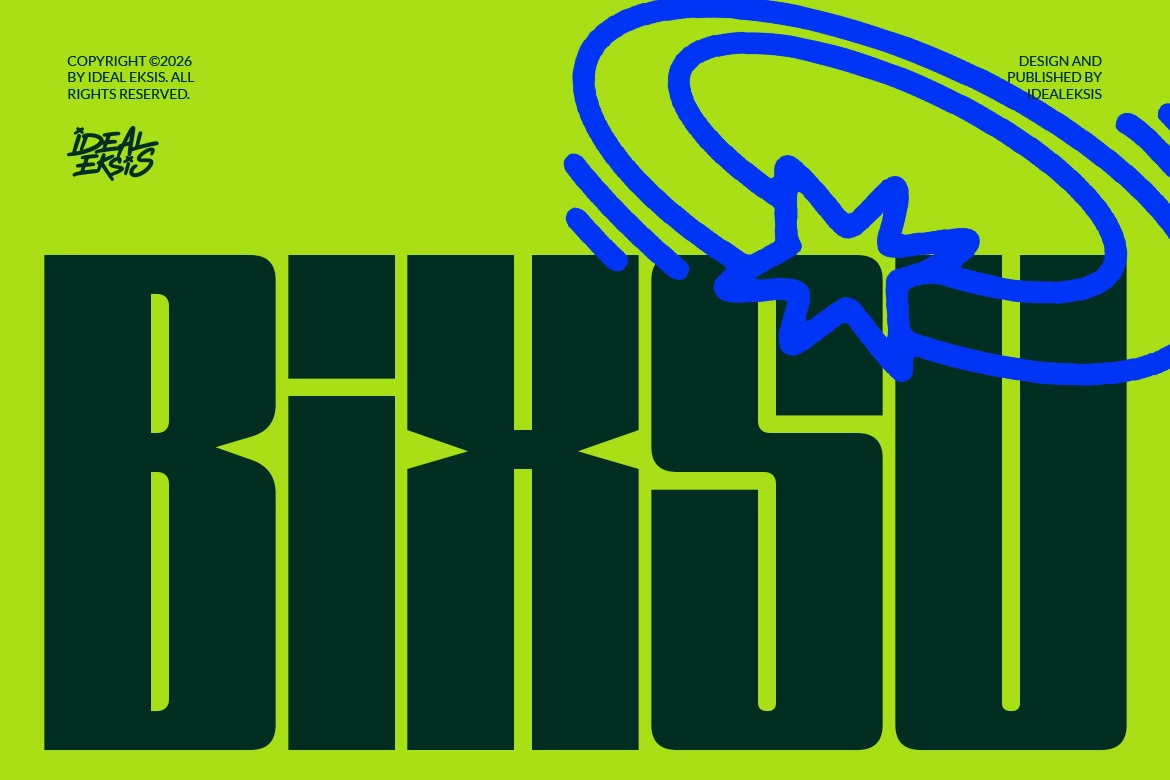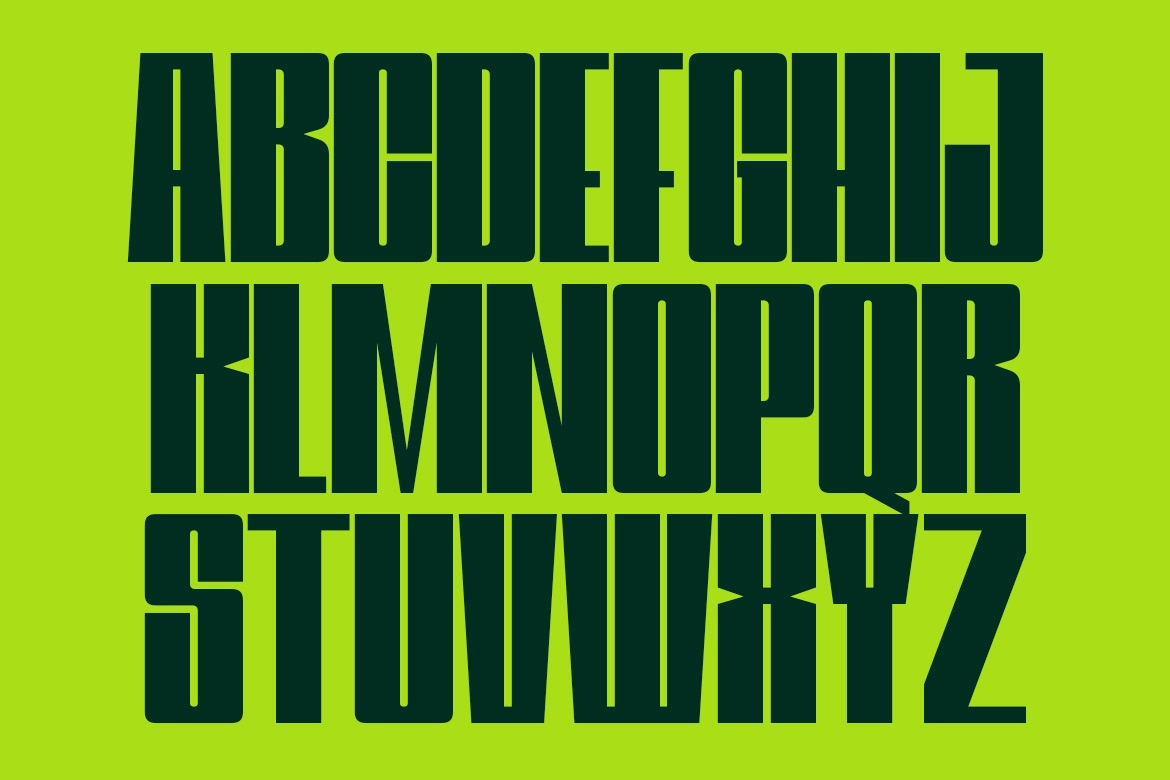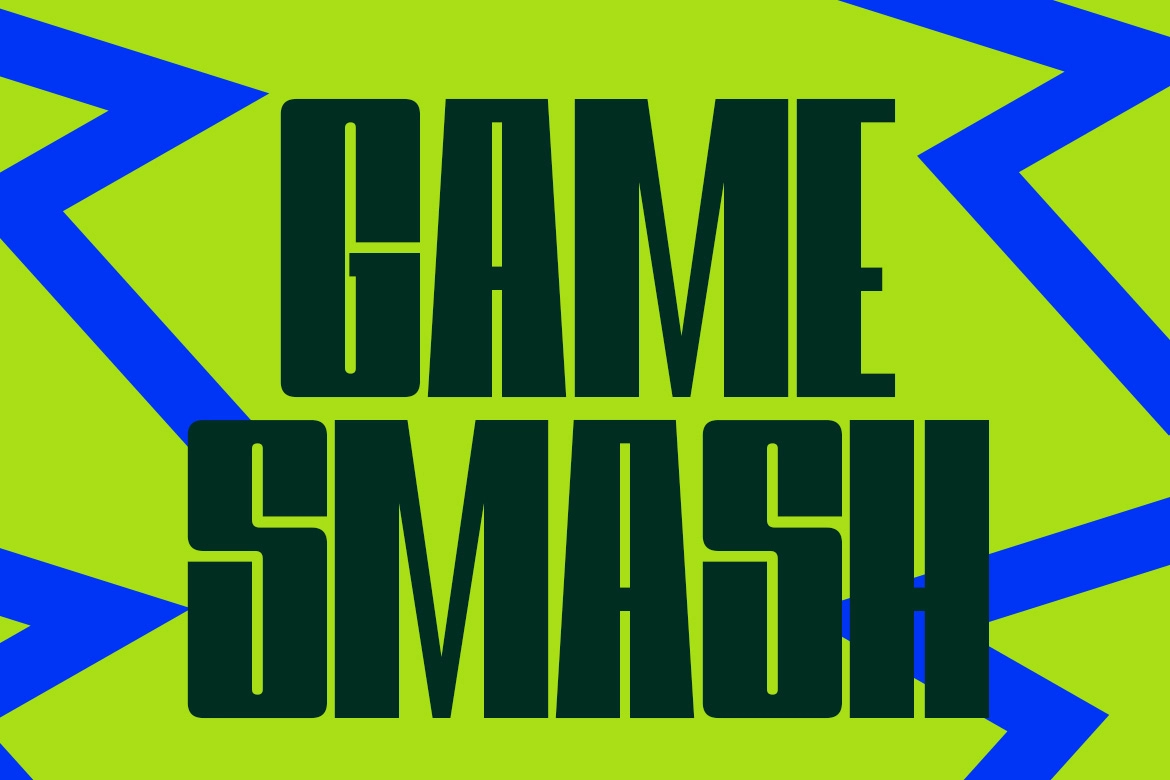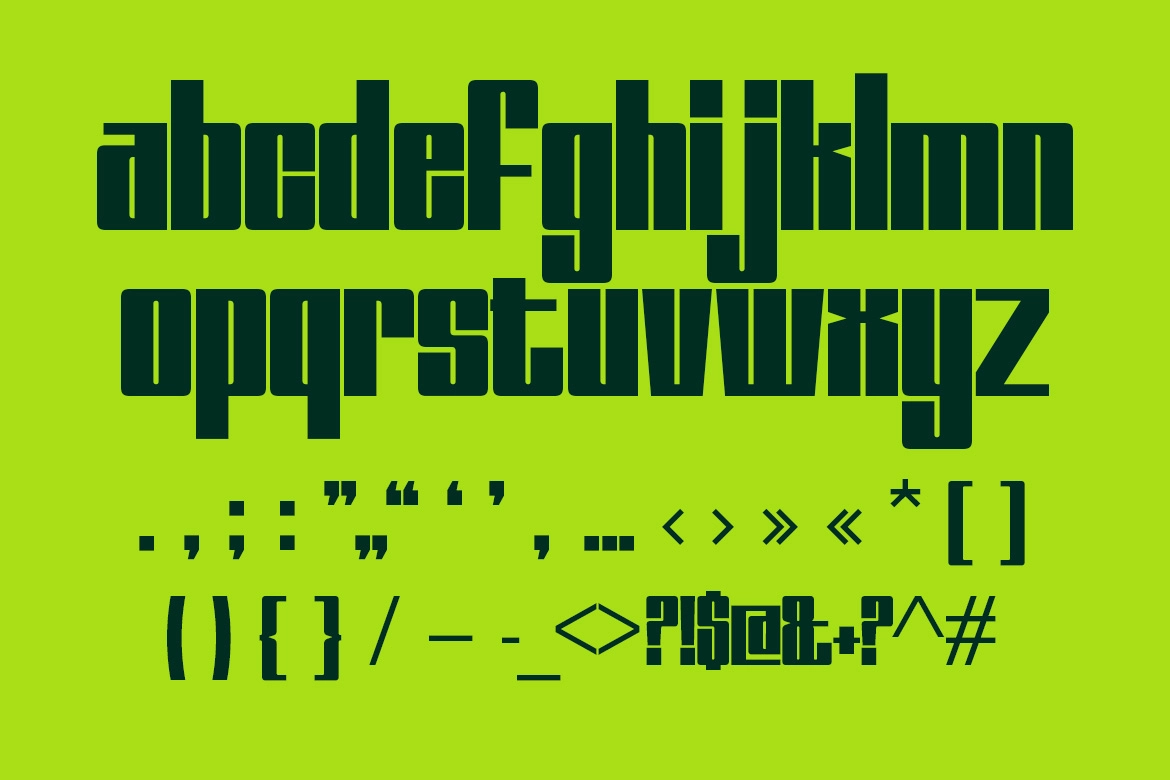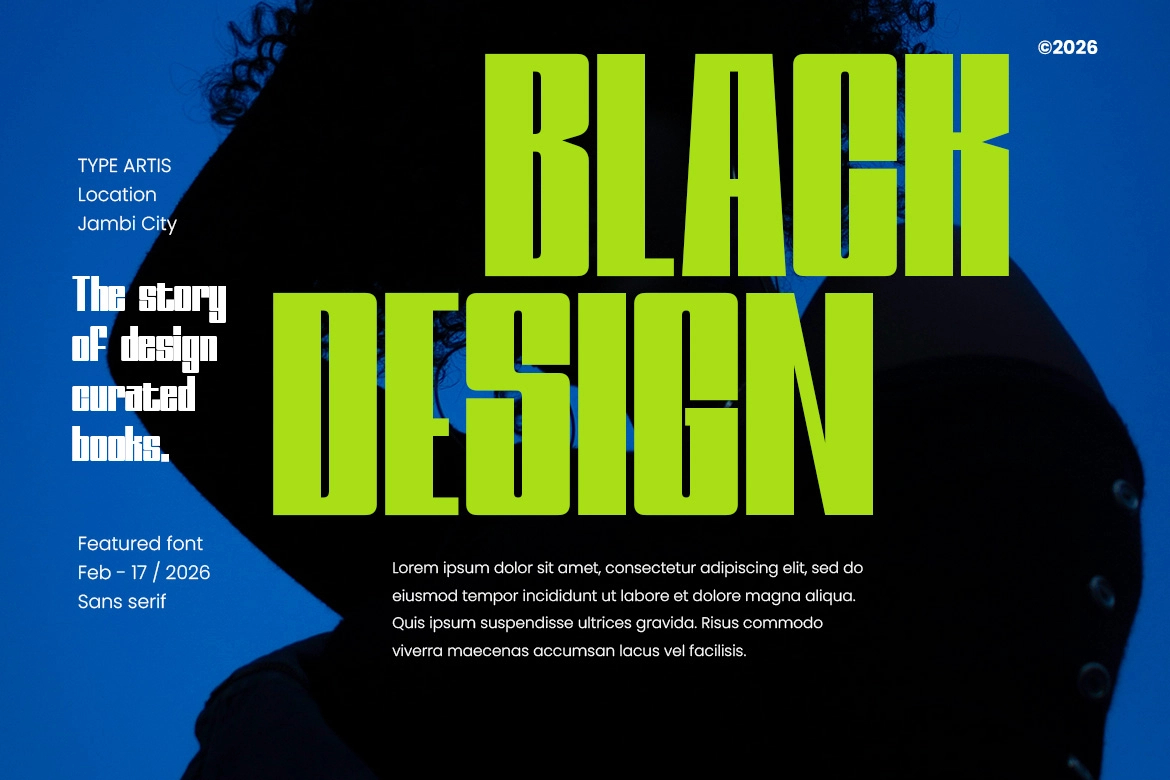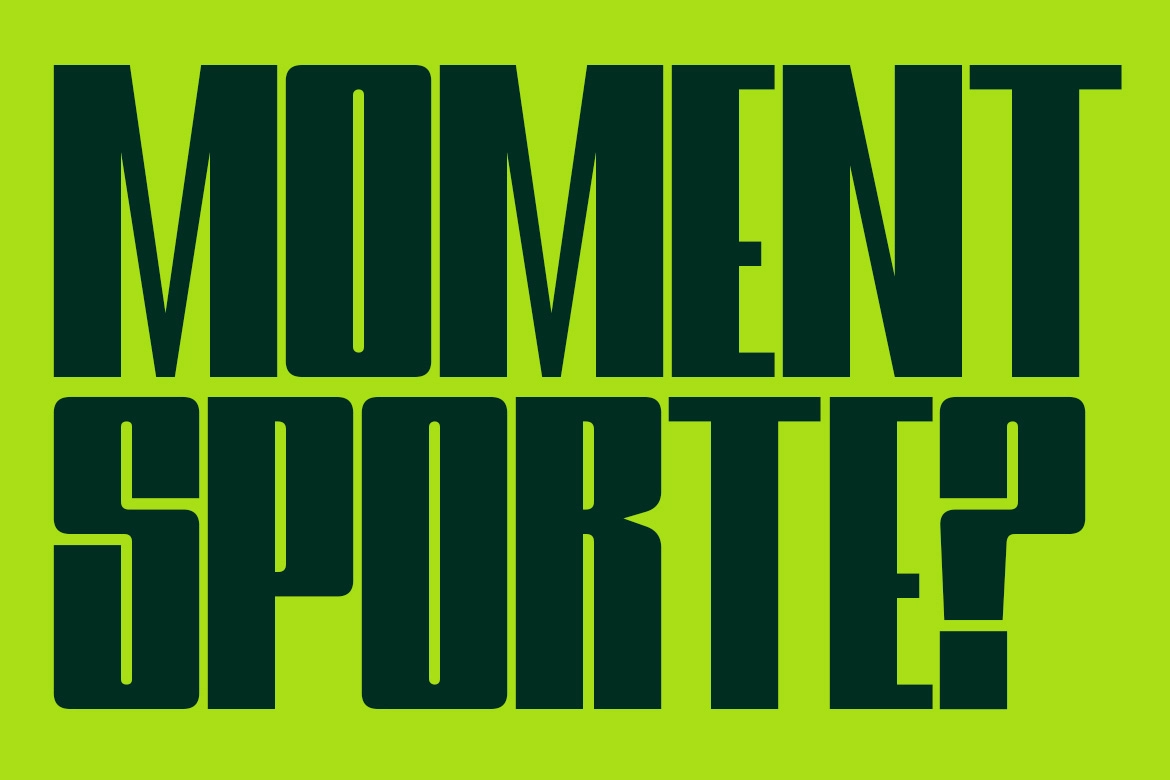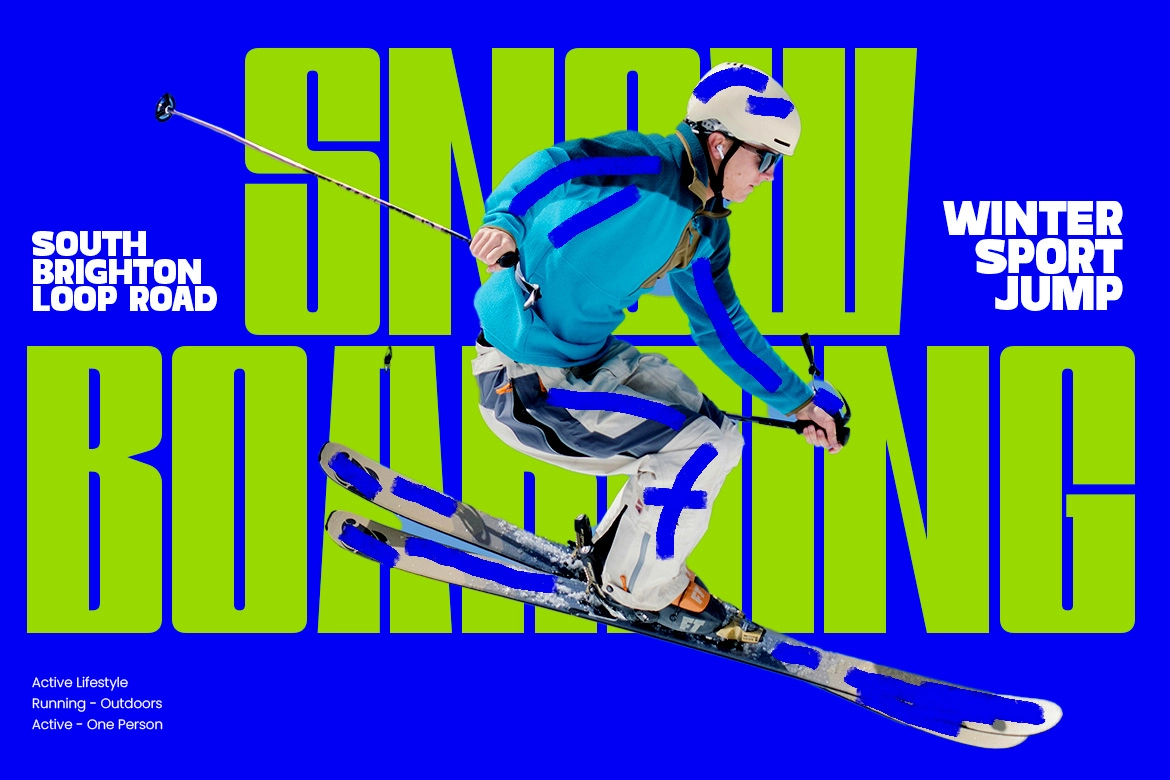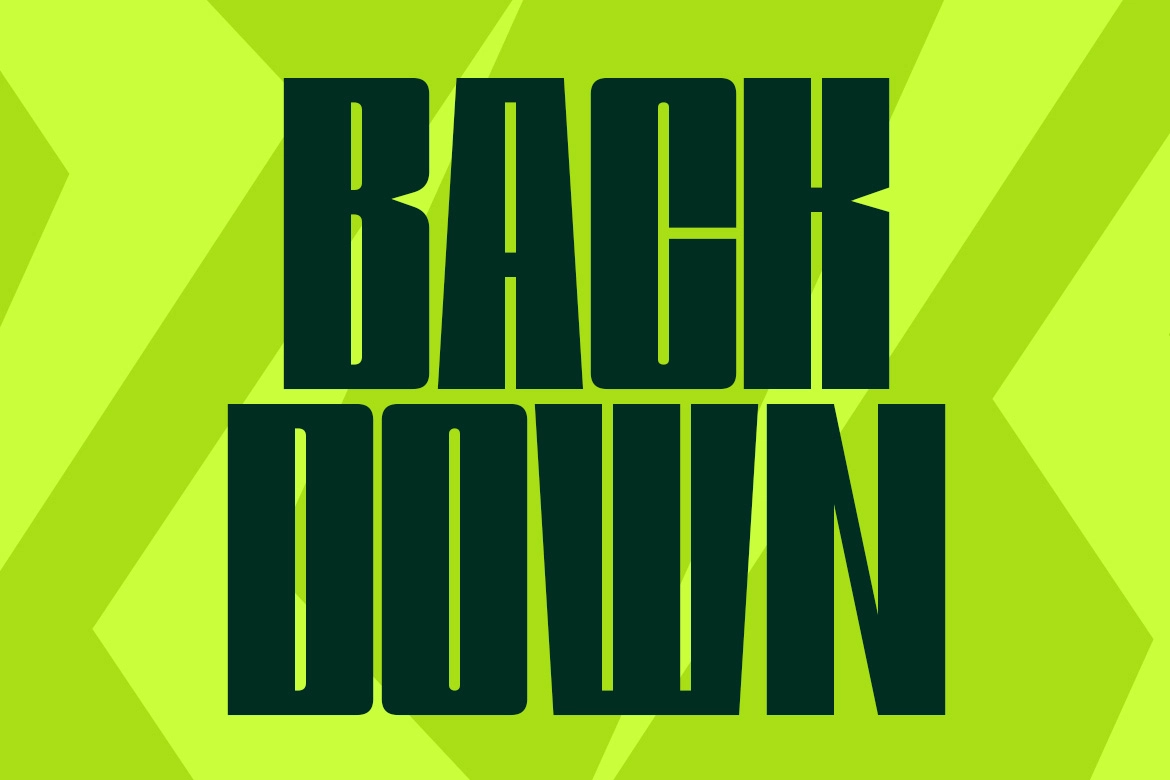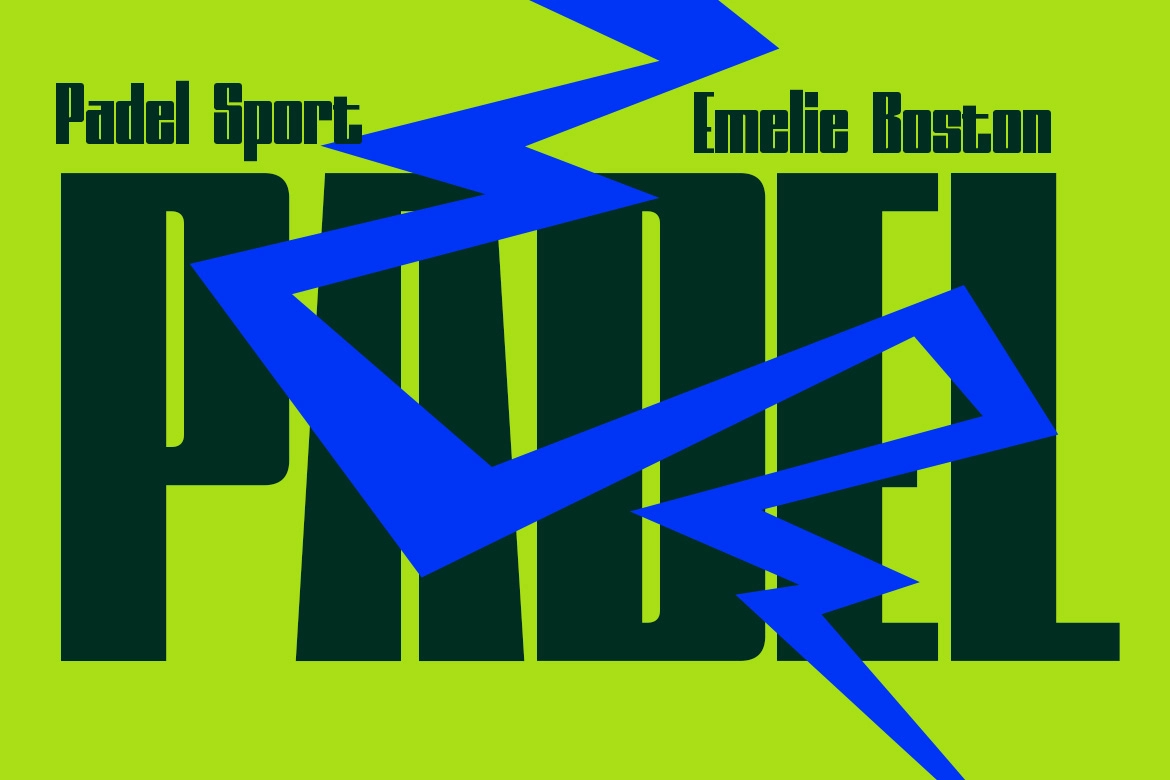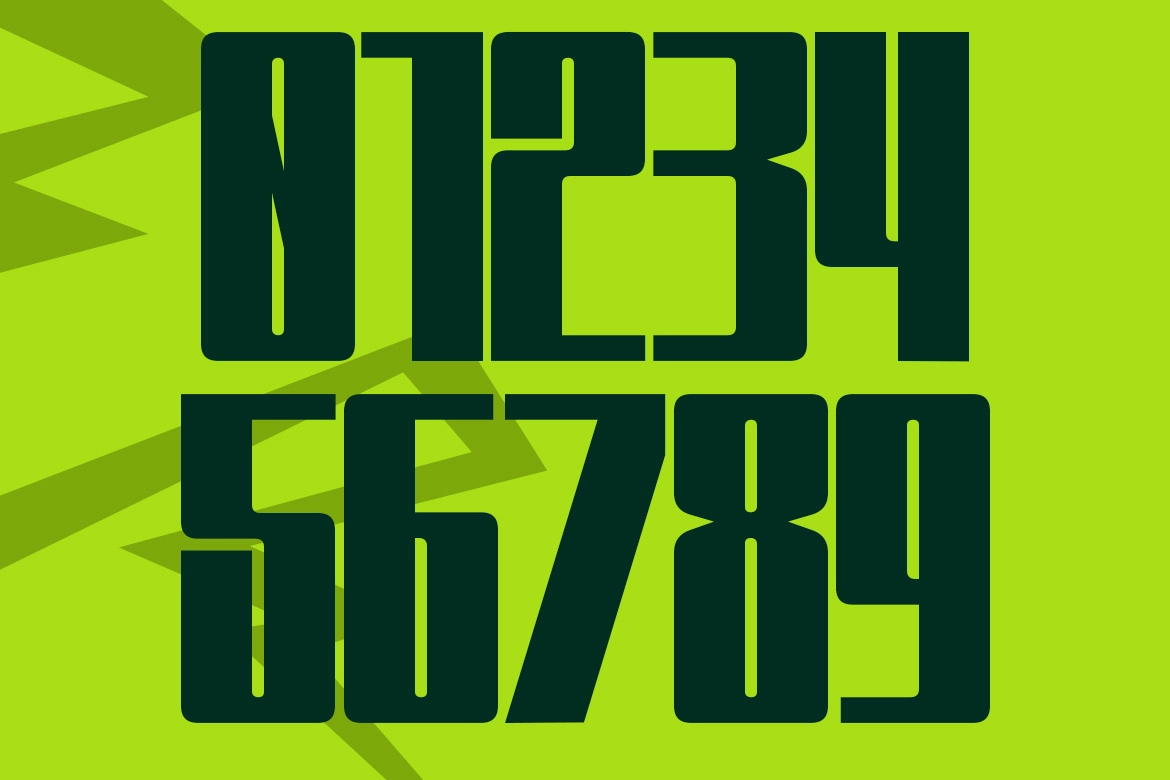
Bixsu - Modern Condensed Font
Bixsu
Bixsu – Modern Condensed Font is a bold, high-impact typeface designed for creators who need strong visual presence and tight spacing. With its tall proportions, sharp geometry, and confident character shapes, this modern condensed font is идеально suited for sports visuals, dynamic branding, and attention-grabbing headlines.
Built to perform in fast-paced and high-energy designs, Bixsu delivers clarity and power whether you're working on esports identities, product campaigns, or social media graphics. Its condensed structure allows you to maximize space while maintaining readability and style.
Perfect For:
- Esports logos
- Sport and speed-inspired headlines
- Product branding and packaging
- Social media visuals
- Tournament graphics
- Flyers and promotional materials